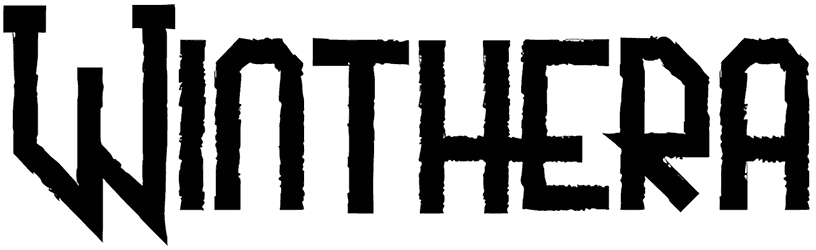
Winthera Font
With this eroded font, you are able to show your words in a different and strange mood. Winthera supports two versions and two sets of uppercase with various details that can make up for the lack of lowercase, numerals, and punctuation. As a display font, Winthera is a distinct pick to illustrate your projects, such as flyers, covers, foregrounds, and along with others.